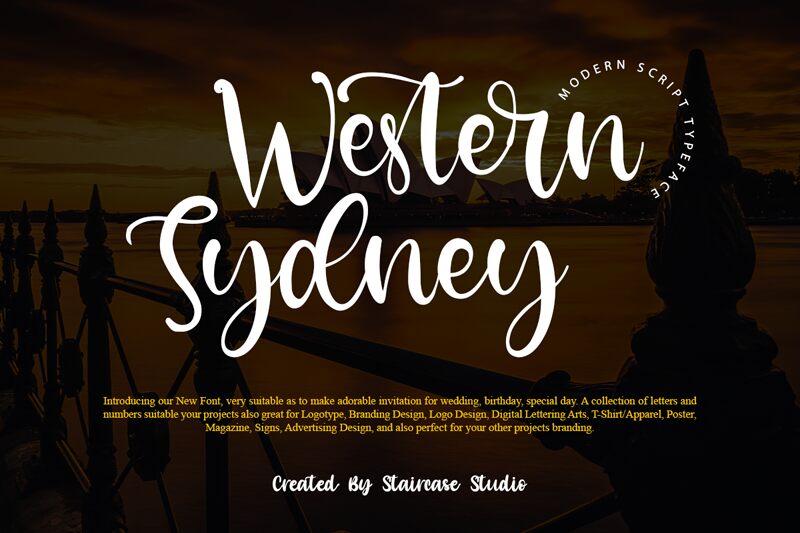
Western Sydney
Western Sydney, a semi-light handwritten font designed by Staircase Studio, gives you a unique handcrafted feel in your designs. It is perfect for adding an authentic touch to any project - from logos and branding to wedding invitations and social media posts. The feminine curves of this font create an elegant yet playful vibe, making it ideal for crafting eye-catching visuals with personality.